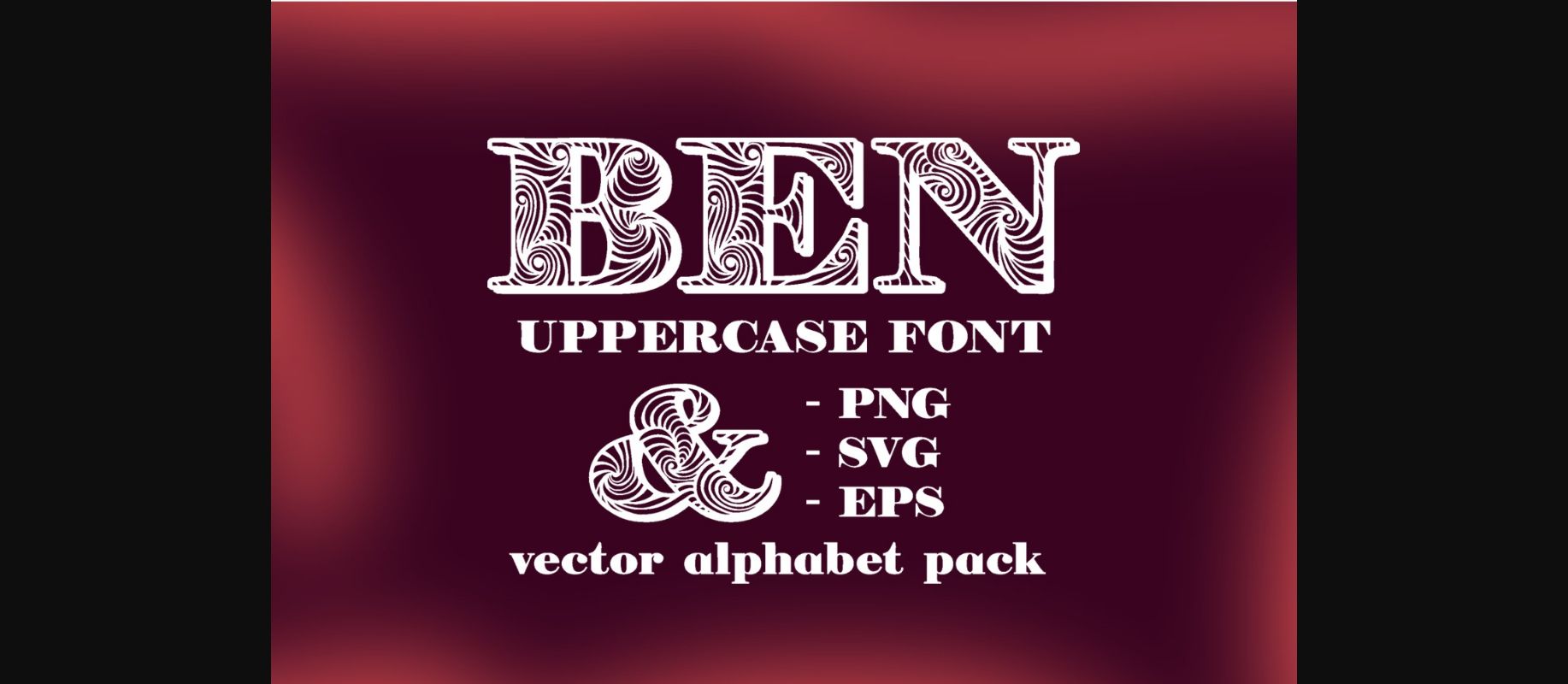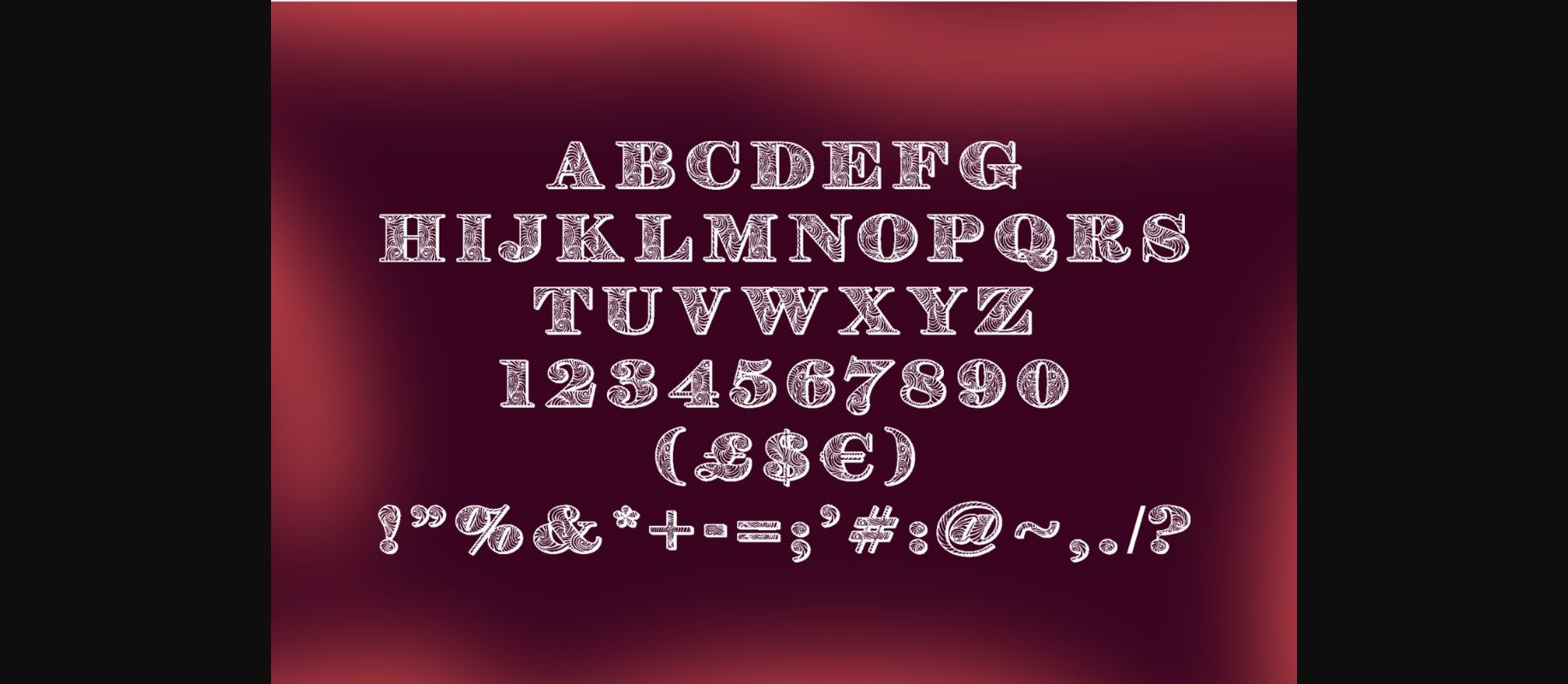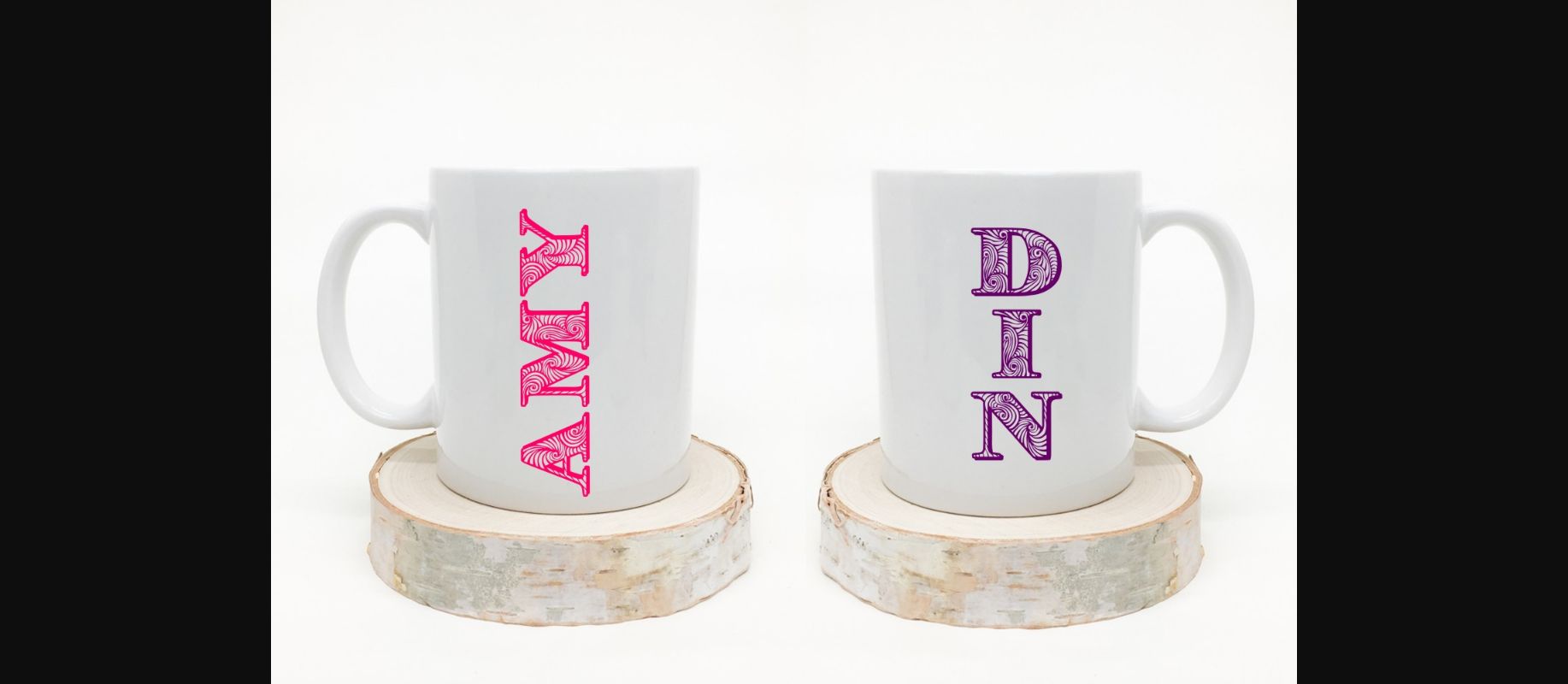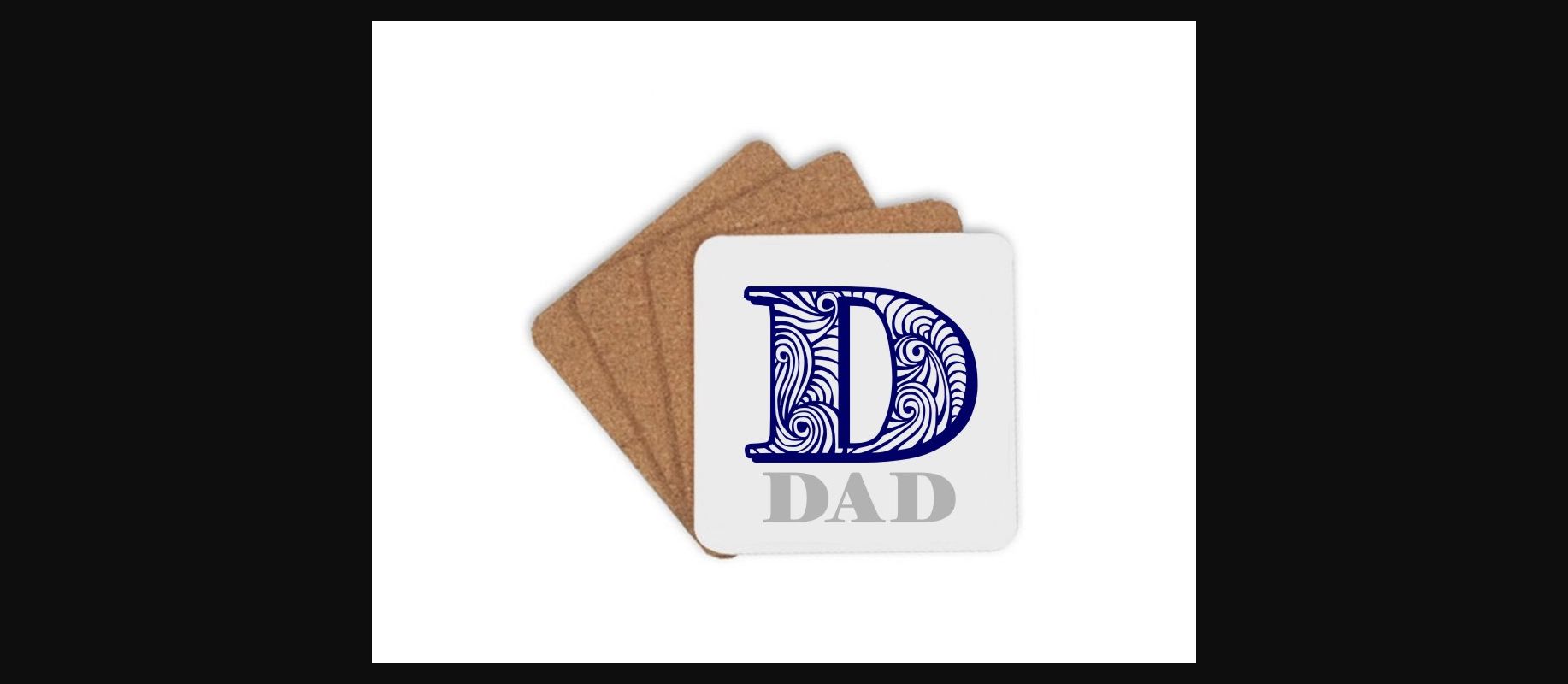
Ben Font
About Ben Font
Ben is a decorative monogram font, perfect for giving your designs a festive and charming appeal. This font is extremely intricate, and will give your projects an unparalleled luxurious feel.